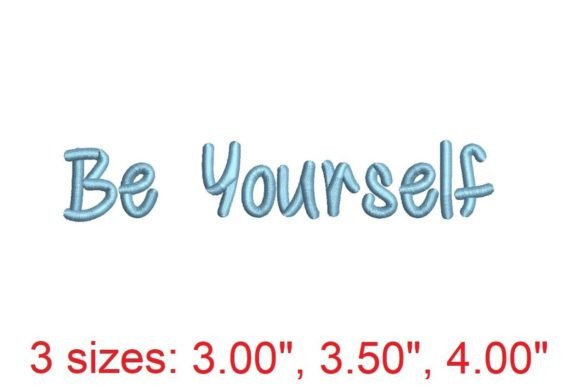
Be Yourself Embroidery Font Review
The “Be Yourself” embroidery font is a standout choice for any creative who wants to infuse personality into seasonal and holiday products. As an experienced embroidery designer, I’ve tested this design across a variety of projects, and it consistently delivers charm and versatility. Whether you’re crafting handmade gifts or preparing for a holiday season, this font has the potential to elevate your work with its unique character.
First Impressions: A Seasonal Mood
From the moment I opened the “Be Yourself” embroidery file, I was struck by its decorative style and emotional tone. The font carries a warm, inviting feel that works well for both cozy and elegant holiday themes. It’s not overly festive, but it has a subtle flair that makes it perfect for personalized items like kitchen towels, pillow covers, and embroidered patches. The level of detail is impressive, with clean lines and a slightly handcrafted look that feels authentic.
This font isn’t just for Christmas—its neutral yet expressive nature makes it ideal for back-to-school items, family matching pieces, and even spiritual or romantic-themed designs. It’s adaptable enough to fit a range of seasonal moods, from rustic to modern, and adds a sense of individuality to any project.
Real-World Use in Holiday Projects
As an Etsy seller and small shop product creator, I’ve found that the “Be Yourself” embroidery font excels in several areas. It’s perfect for gift bundles, where personalization can make a big difference. Customers love seeing their names or meaningful messages on items like sweatshirts, tote bags, and aprons. This font adds a touch of uniqueness that sets your products apart from mass-produced options.
For craft fair displays, the font’s clarity and visual appeal help attract attention. It looks great on printable mockups and promotional graphics, making it easy to showcase your designs. When used on limited edition apparel, it brings a sense of exclusivity that resonates with holiday shoppers looking for something special.
It also works well for family matching items, such as coordinating sweatshirts or baby onesies. The font’s readability ensures that even small lettering remains legible, which is crucial for items that will be washed repeatedly.
Where to Use With Caution
While the “Be Yourself” embroidery font is versatile, there are some situations where care is needed. On small hoop sizes, the font may require adjustments to maintain quality. Tiny lettering could become distorted if not properly scaled. For thick towels or dark fabrics, it’s important to test thread colors to ensure visibility and durability.
Using metallic thread might alter the font’s appearance, so it’s best to test first. Stretchy garments and curved caps can also pose challenges, as the font may not sit perfectly on curved surfaces. Dense stitch areas should be avoided unless you have experience with high-density stitching, as it can cause puckering or fabric distortion.
Impact on Seasonal Appeal and Buyer Emotion
The “Be Yourself” embroidery font enhances the emotional connection between the product and the buyer. Personalized gifts always carry more value, and this font helps create that sense of meaning. It makes items feel more thoughtful and tailored, which increases their giftability and customer trust.
During the holiday shopping period, visual recognition is key. This font stands out without being overwhelming, making it easier for customers to identify your brand or product line. It also supports brand consistency, especially when used across multiple items like tote bags, pillow covers, and embroidered patches.
Engagement is another area where this font shines. Social media previews of items featuring “Be Yourself” often receive positive feedback, as the font adds a personal and artistic touch. It’s a great way to showcase your creativity and connect with your audience.
Practical Designer Notes
When working with the “Be Yourself” embroidery font, always test thread colors on both light and dark fabrics to ensure the best results. Check the stitch density to avoid overworking the fabric, and confirm the hoop size required for your machine. Using the right stabilizer is essential, especially for delicate or stretchy materials.
Creating realistic mockups before finalizing your designs can save time and prevent errors. After stitching, review small details to ensure everything looks clean and professional. Planning matching color palettes will help maintain a cohesive look across your seasonal products.